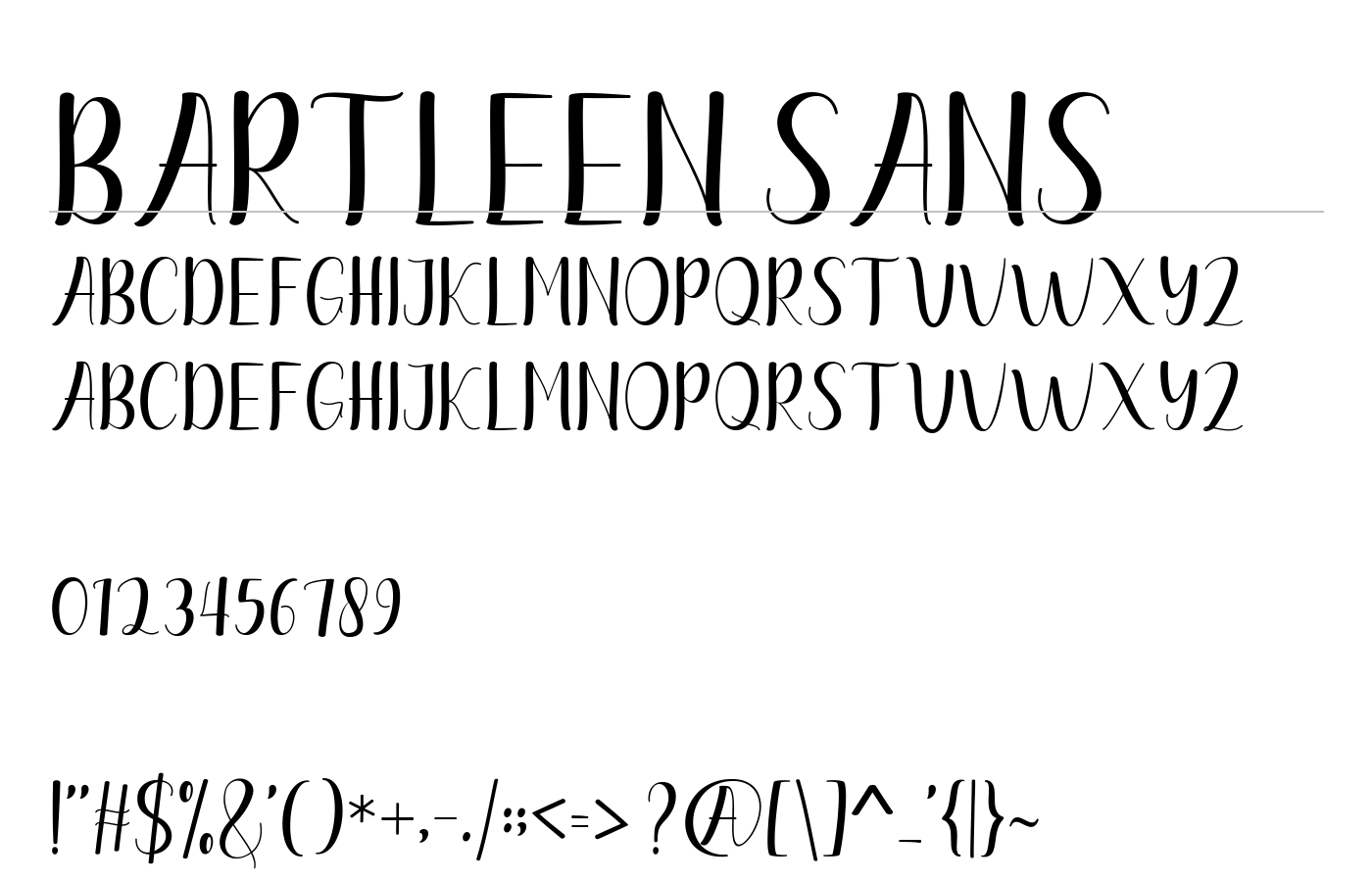
Bartleen Sans is a slender, playful sans serif font characterized by its tall, narrow letterforms and delicate, slightly whimsical strokes. Its elegant, hand-drawn feel makes it ideal for creative and artistic branding, invitations, and headlines where a touch of charm and individuality is desired. This font stands out in projects aiming for a stylish yet casual aesthetic.
Bartleen Sans Font
About Bartleen Sans Font
| Font family | Bartleen Sans Font |
| Designer | Cut Story / Ramadhana |